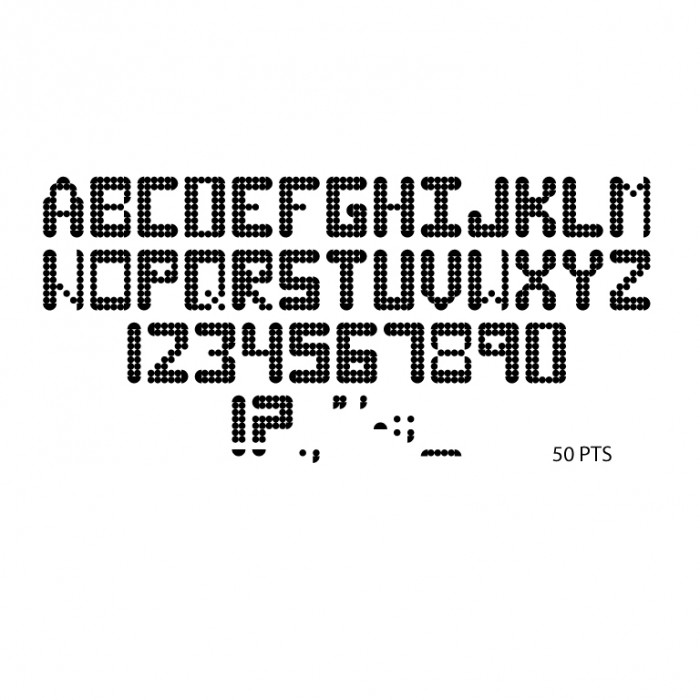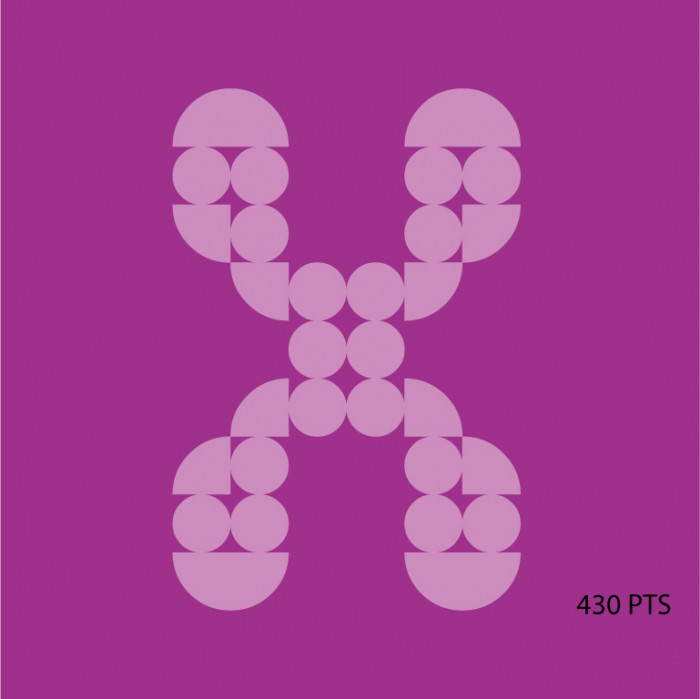
• Sci-fi typefaces can be so smooth and simple. While that certainly has a place, why not take it the other way? FunkTachyon is based on a more retro, old school, funky style, designed to resemble flashing signs found on popular strips. It's best used for flashy messages that brim with energy.